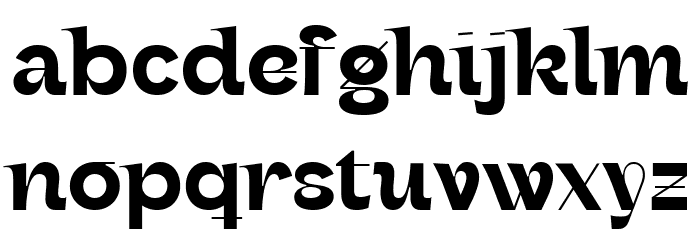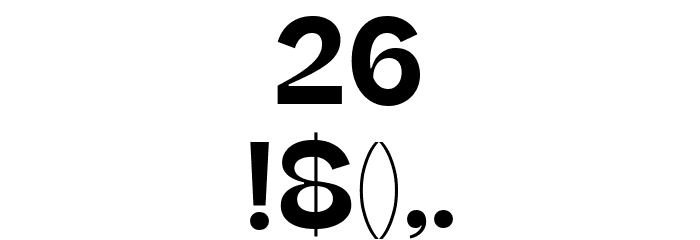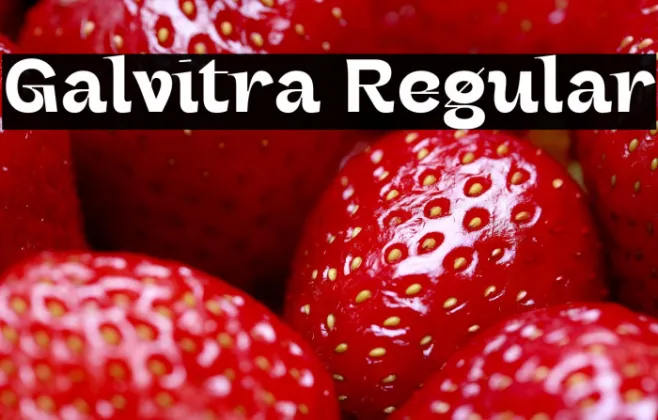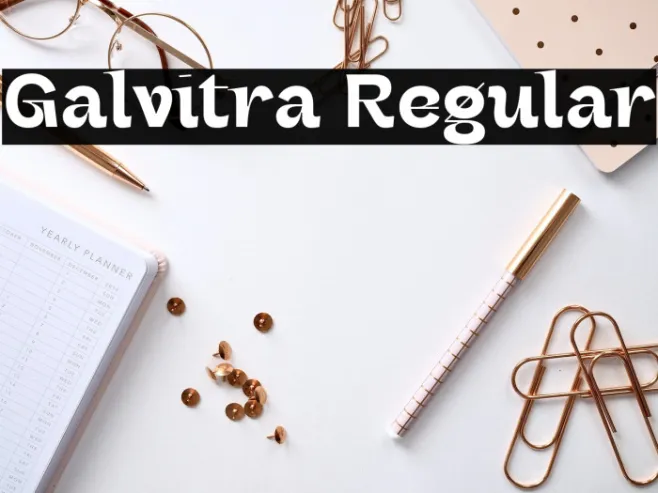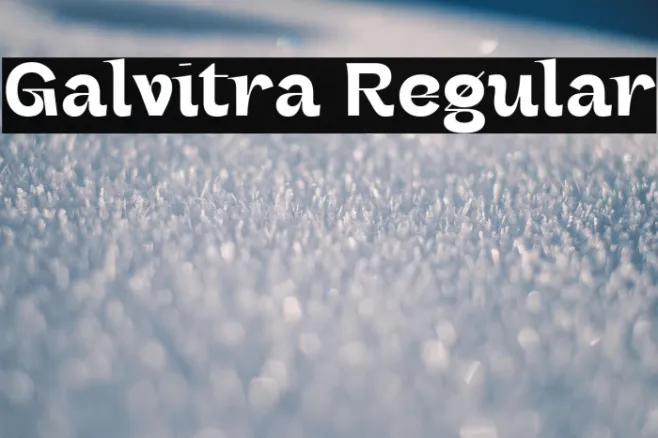
Galvitra Regular Font
This font features a bold and dynamic style with a modern twist. The uppercase letters are characterized by sharp angles and clean lines, while the lowercase letters maintain a playful yet sophisticated appearance. The numerals are bold and easily readable, making them suitable for various design applications. Special characters are distinct and well-integrated into the overall design. The font's unique style makes it stand out, offering a contemporary look that is both versatile and eye-catching.
A bold, modern font with sharp angles and playful lowercase letters.
- Font: Galvitra Regular
- Proposed Projects: Ideal for branding, advertising, and editorial design projects that require a modern and bold aesthetic.
- Category: Modern
- Use Case: Headlines, Logos, Branding